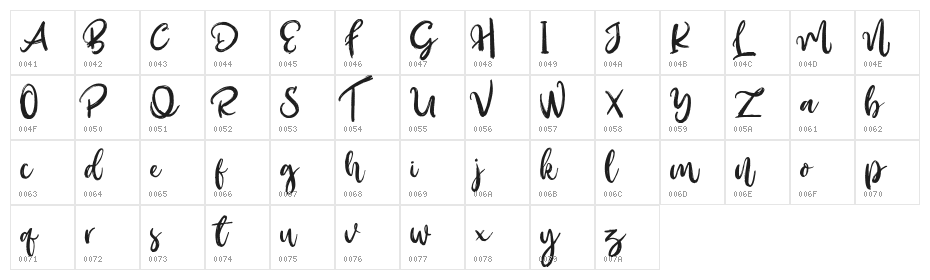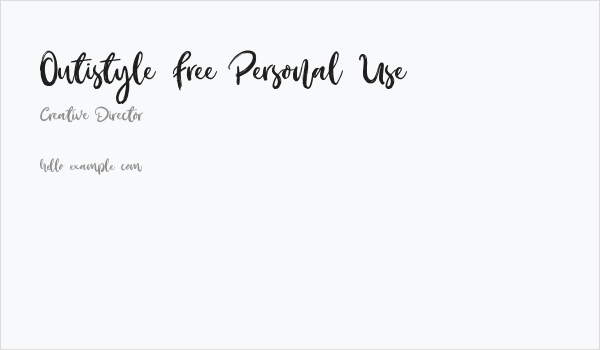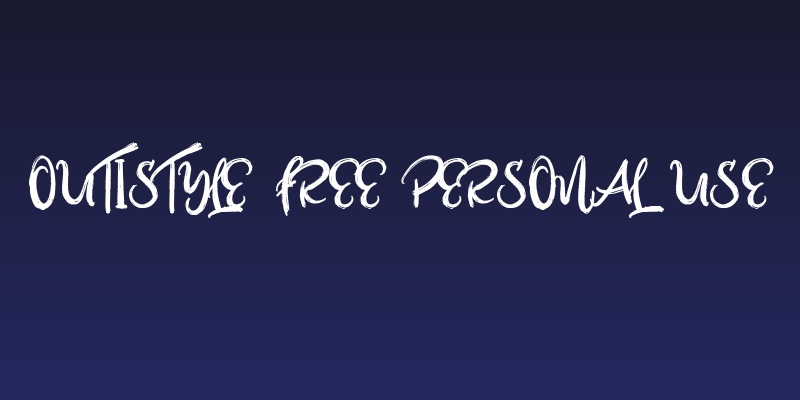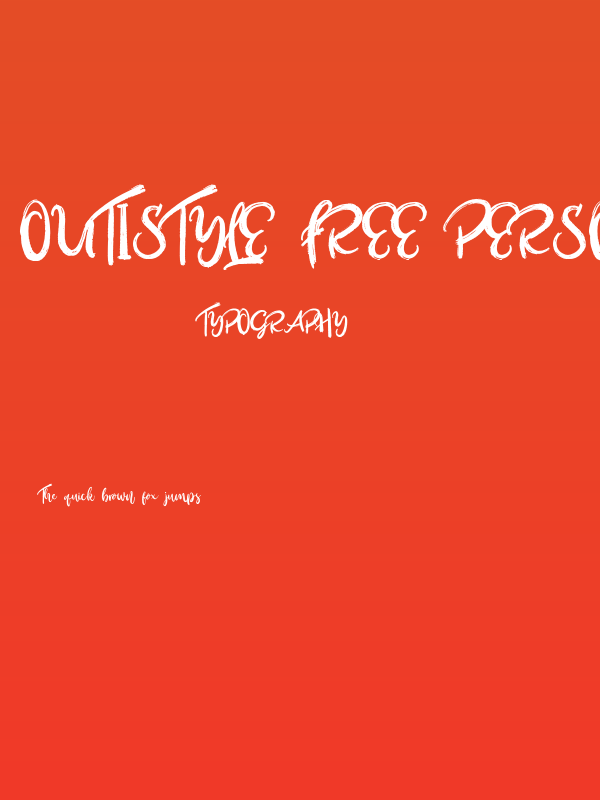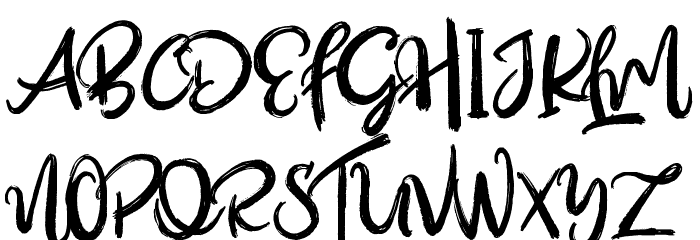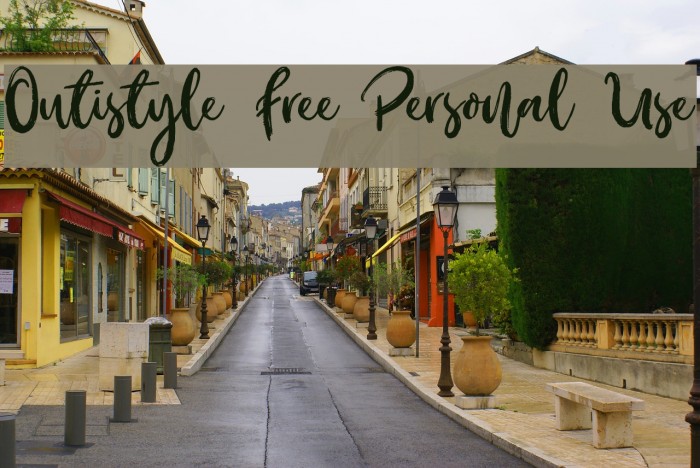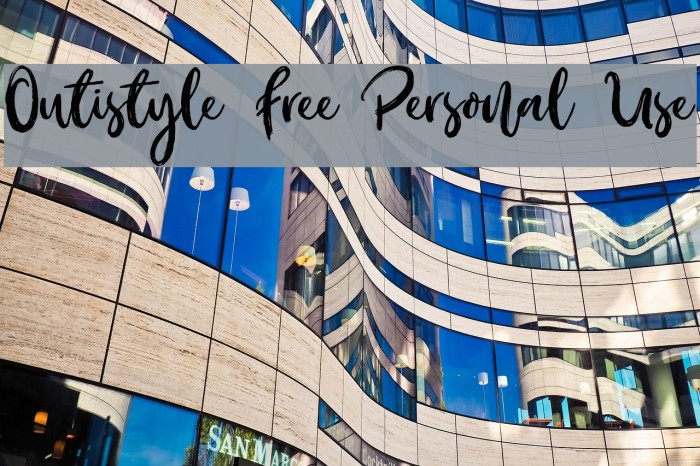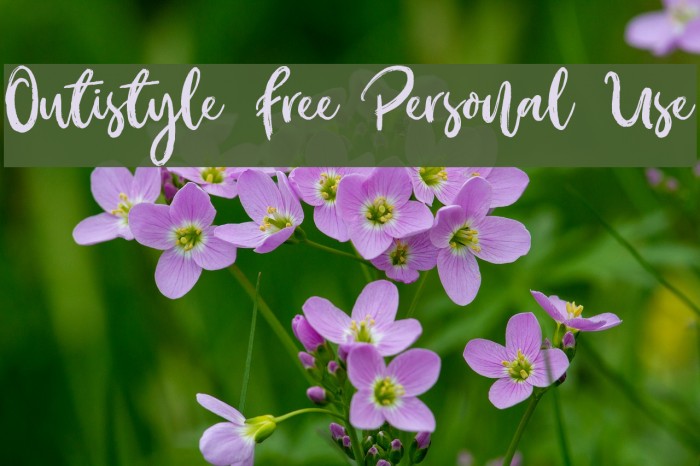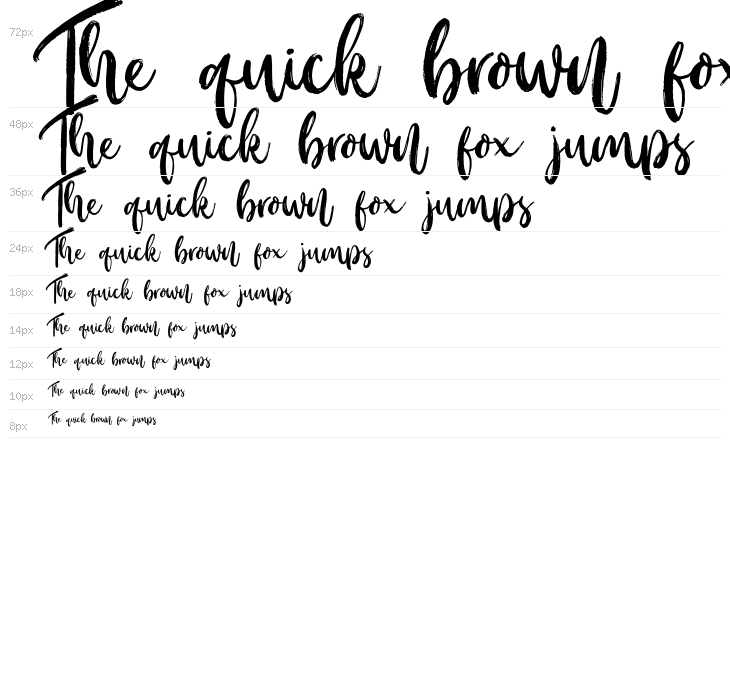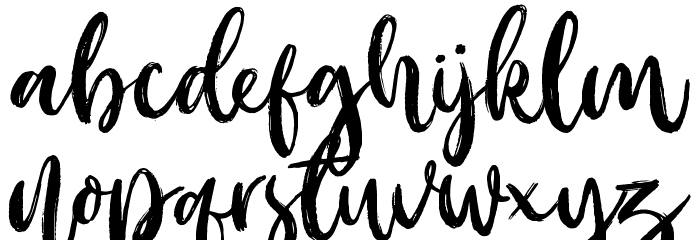
Outistyle Free Personal Use Font
Outistyle Free Personal Use Description
This font features a bold, expressive style with a brush script appearance. The letters are characterized by their fluid, hand-drawn strokes, giving them a dynamic and artistic feel. The uppercase and lowercase letters maintain a consistent style, with some variation in stroke width that adds to the font's lively character. The overall design is informal and energetic, making it suitable for creative and playful applications. The font's unique style is enhanced by its irregularities, which contribute to its handcrafted look.
| Proposed Projects | Ideal for creative projects such as posters, invitations, branding, and social media graphics where a lively and artistic touch is desired. |